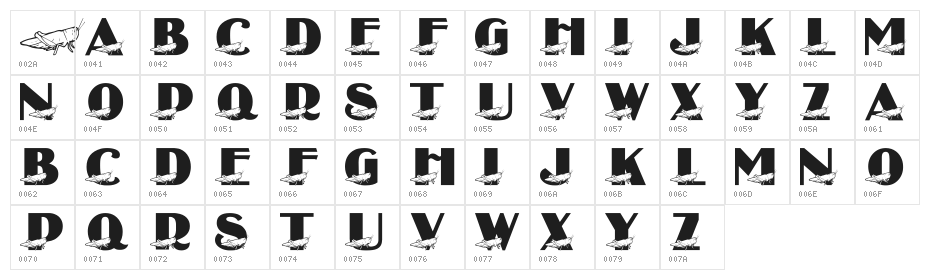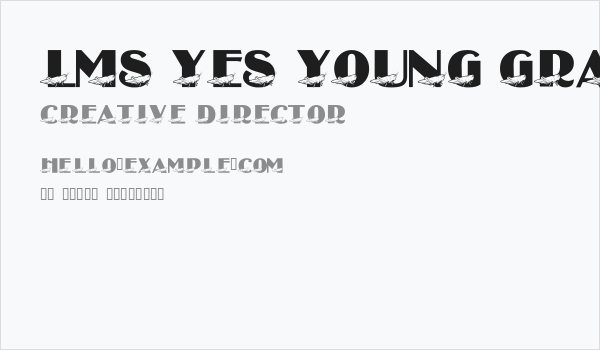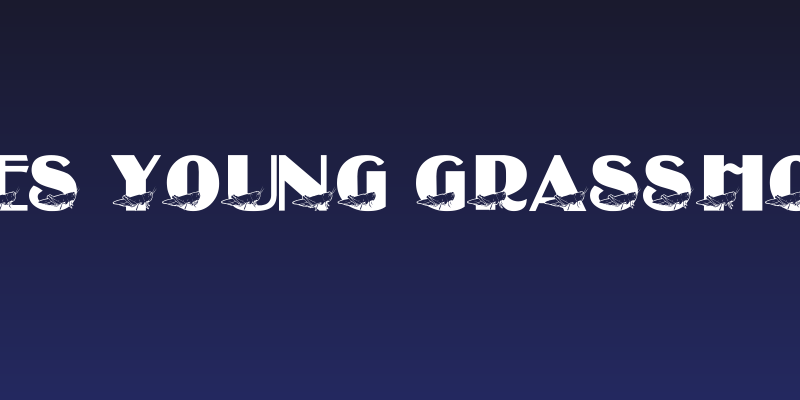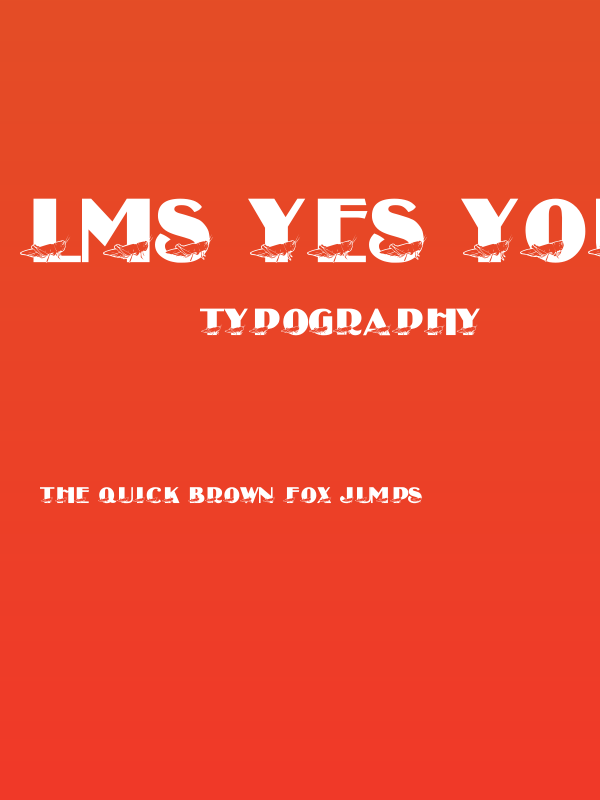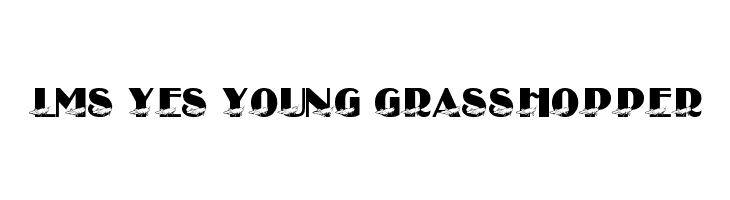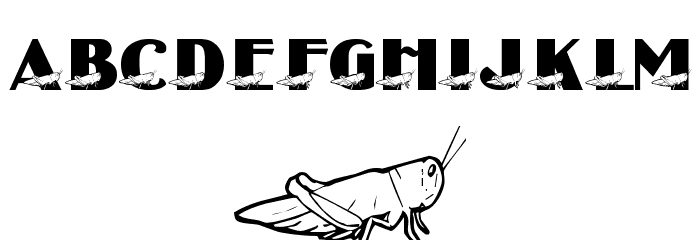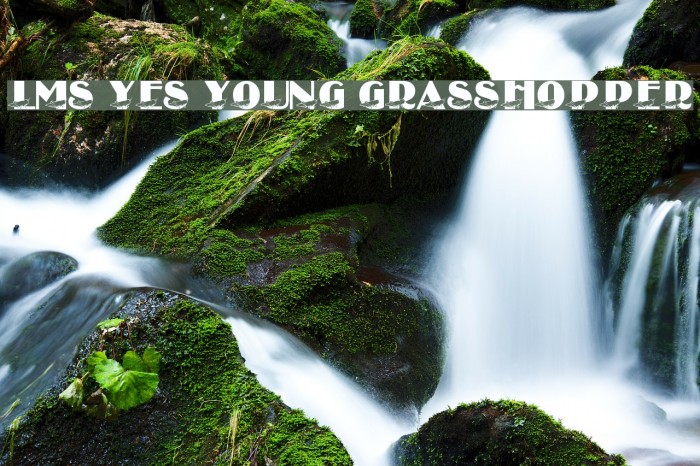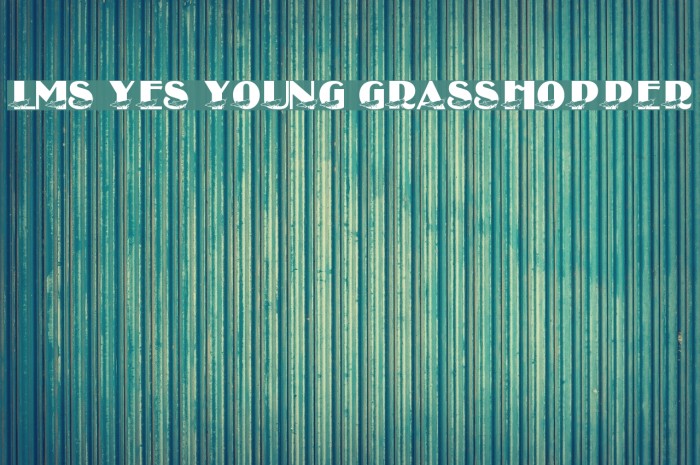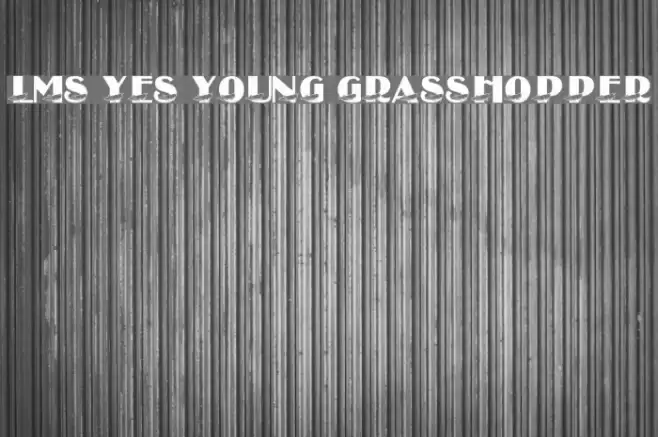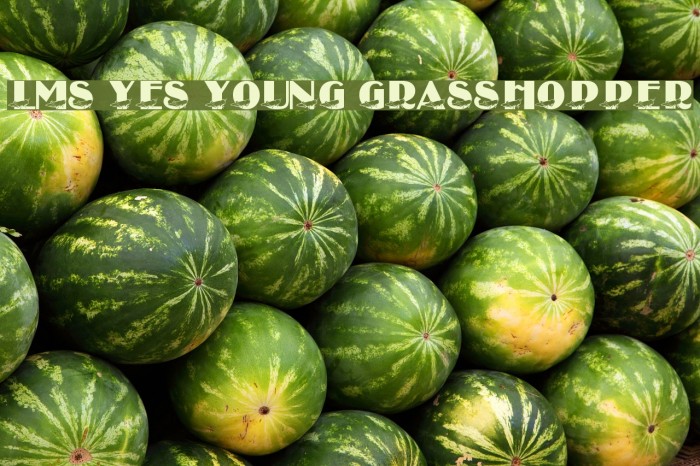
LMS Yes Young Grasshopper Font
LMS Yes Young Grasshopper Description
This playful and whimsical font features bold, uppercase letters with a unique twist. Each character is adorned with a small, detailed grasshopper illustration, adding a touch of nature and fun to the design. The letters are solid and strong, making them stand out, while the grasshopper adds an element of surprise and creativity. This font is perfect for projects that require a lighthearted and imaginative touch, such as children's books, playful branding, or nature-themed designs. The combination of bold typography and intricate illustrations creates a visually engaging experience.
| Overall Style | Playful, Whimsical |
| Proposed Projects | Ideal for children's books, playful branding, and nature-themed designs. |